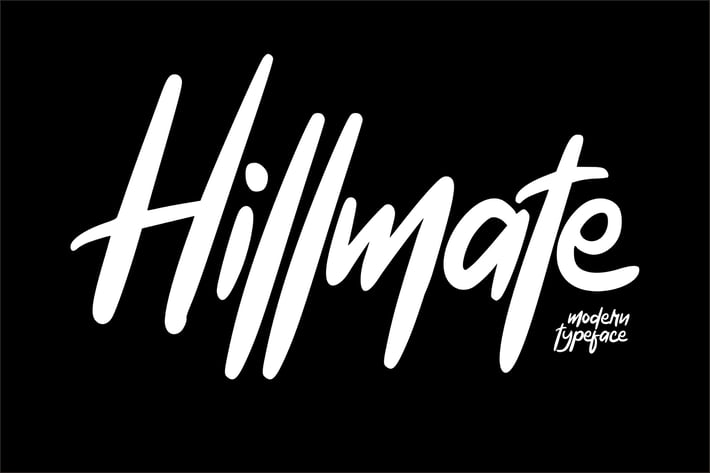
Hillmate | Modern Typeface Script
Hillmate | Modern Typeface Script with a calligraphy style, So beautiful on invitation like greeting cards, branding materials, business cards, quotes, posters, and more!